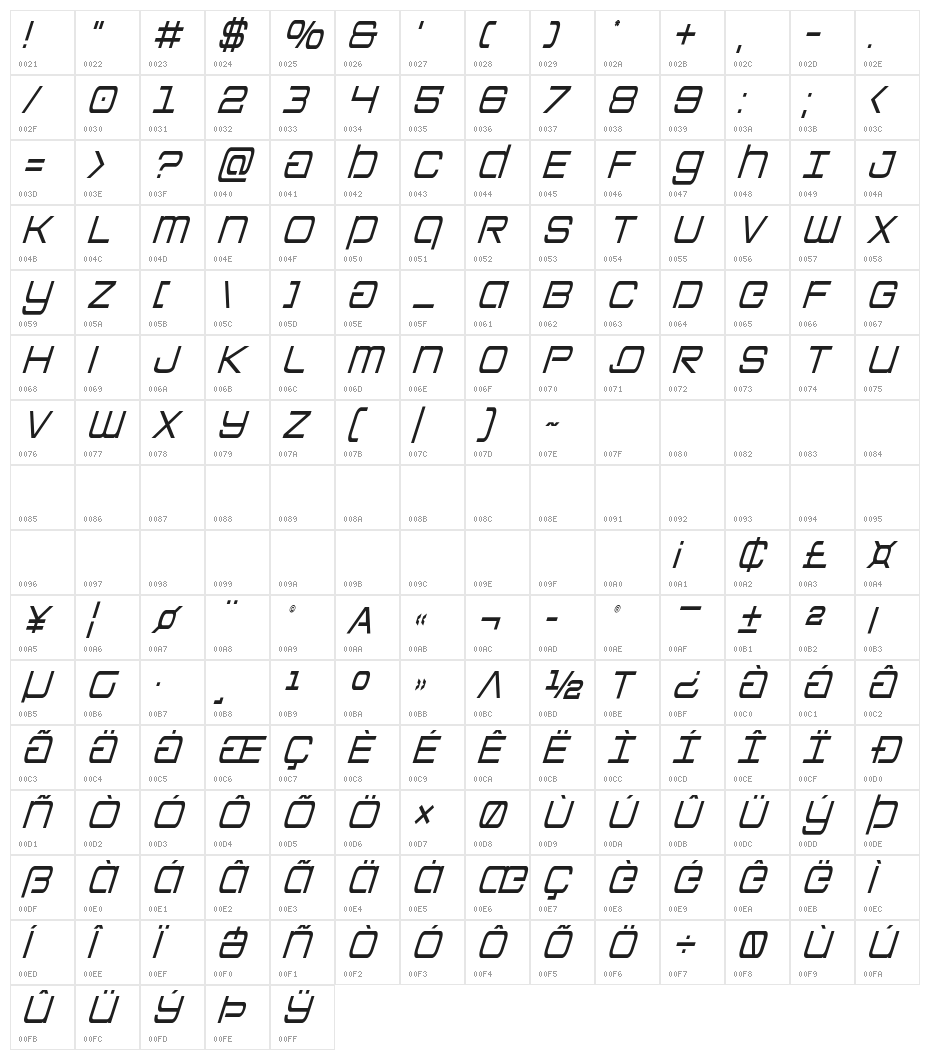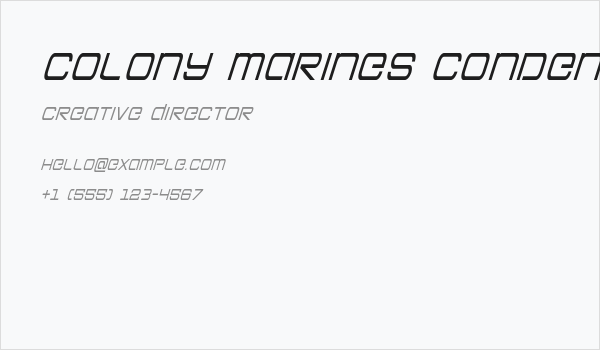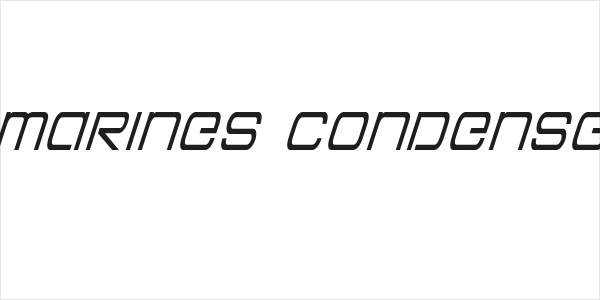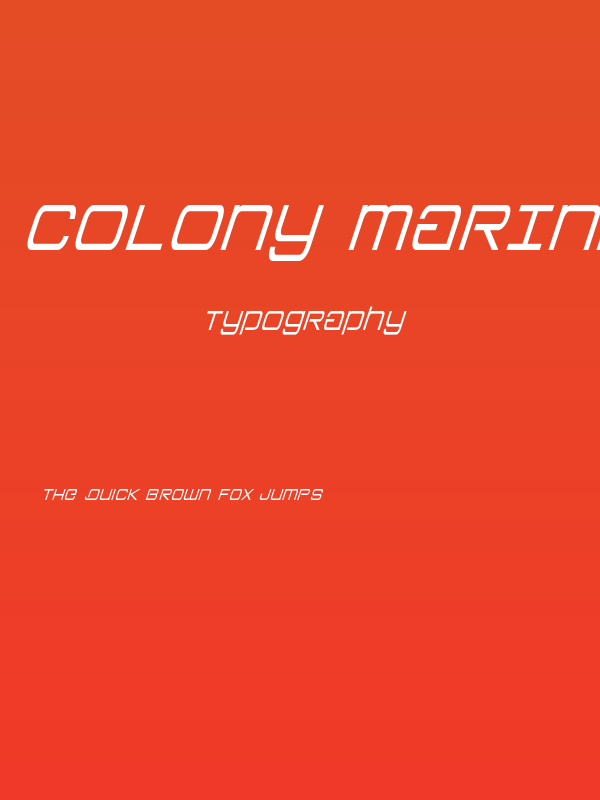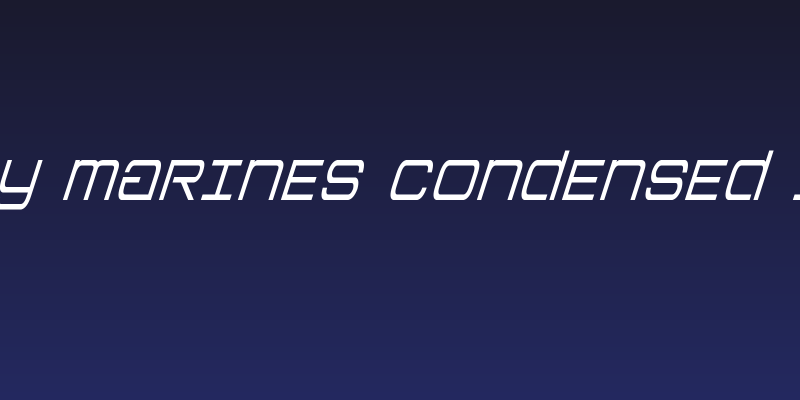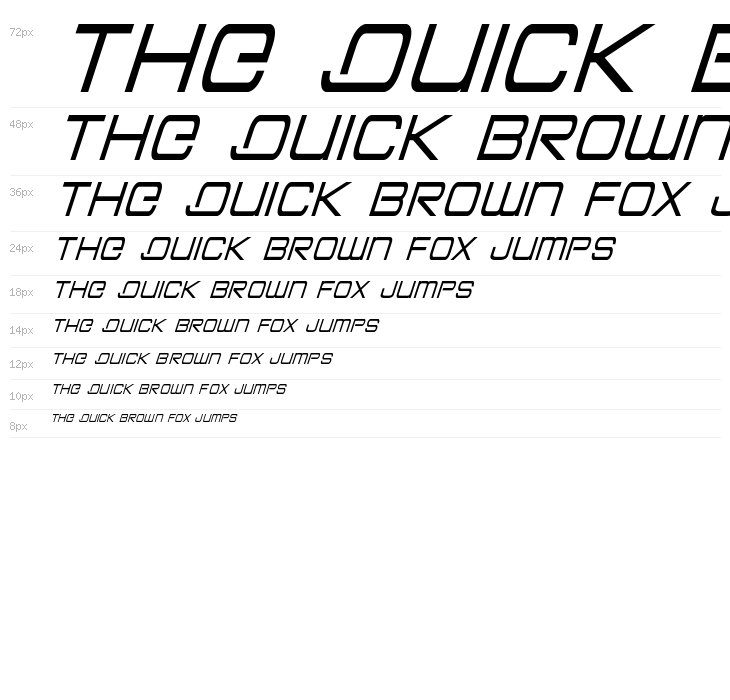
Colony Marines Condensed Italic Font
Colony Marines Condensed Italic Description
This font features a sleek, modern design with a condensed and italicized style. The characters are slightly slanted, giving a sense of motion and dynamism. The strokes are uniform in thickness, contributing to a clean and streamlined appearance. The geometric shapes of the letters provide a futuristic and technical feel, making it suitable for projects that require a contemporary and innovative look. The spacing between characters is tight, enhancing the compact nature of the font.